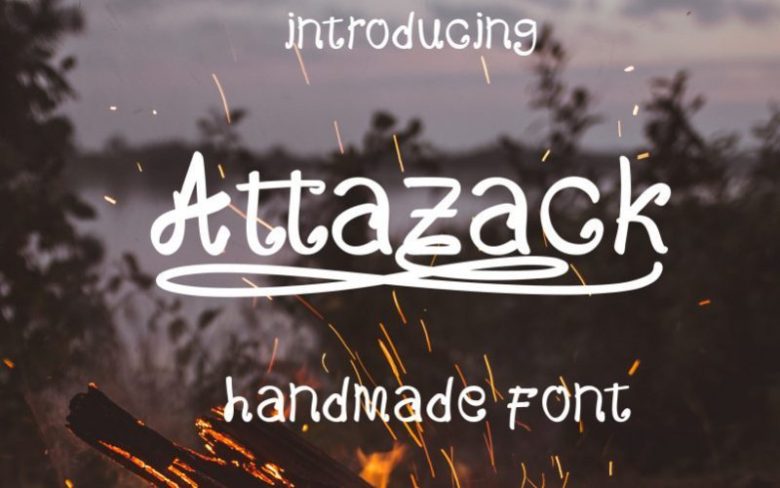
Attazack Handwritten Font
Introducing our first font called Attazack,
Great for use in social media posts, branding projects, logo, and any projects that need handwriting taste.